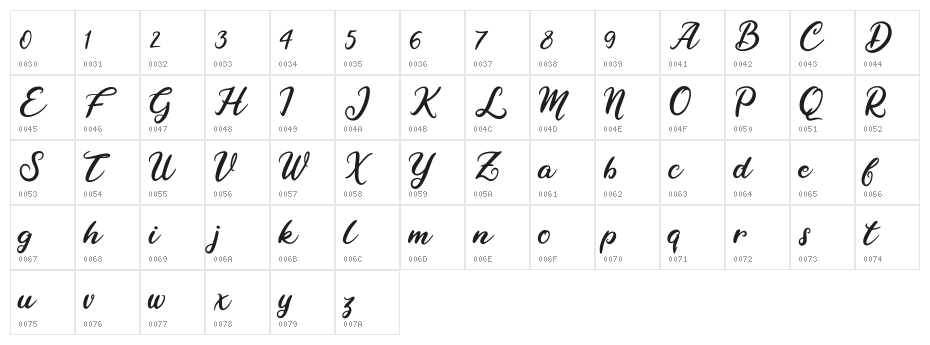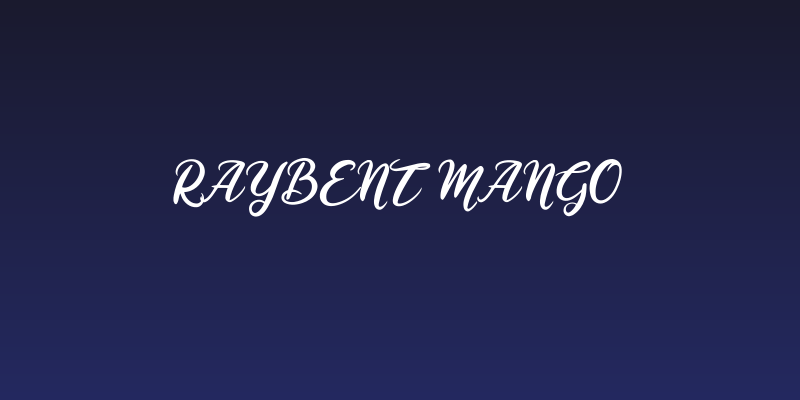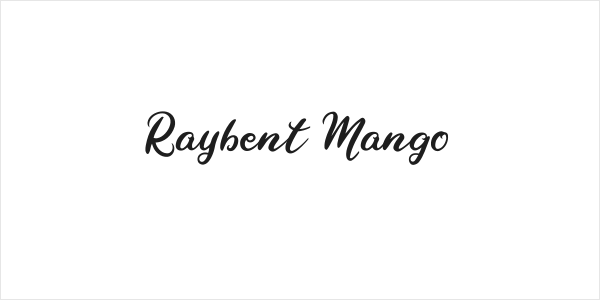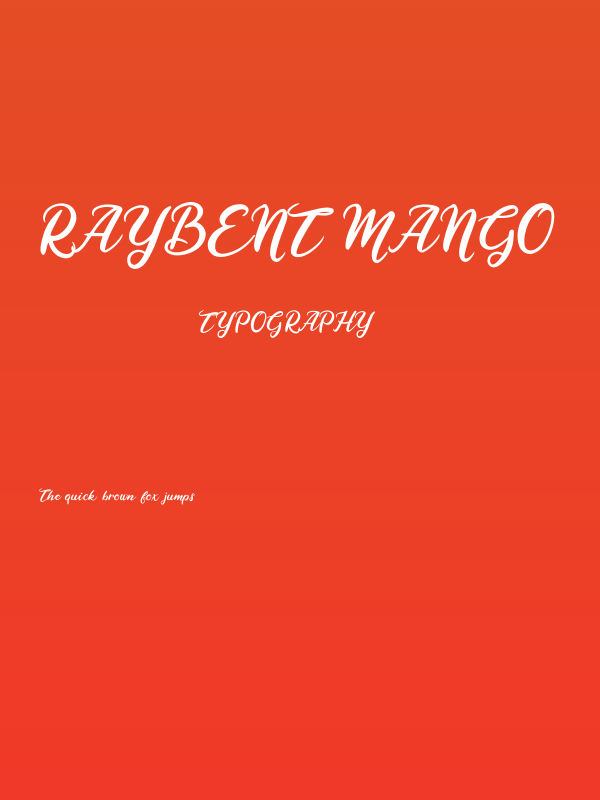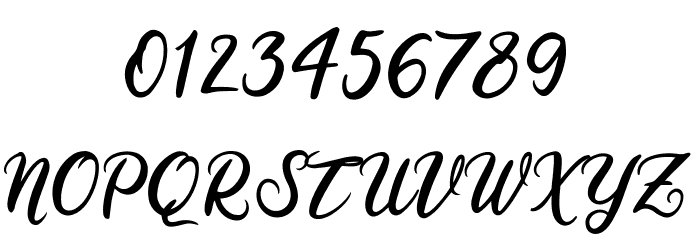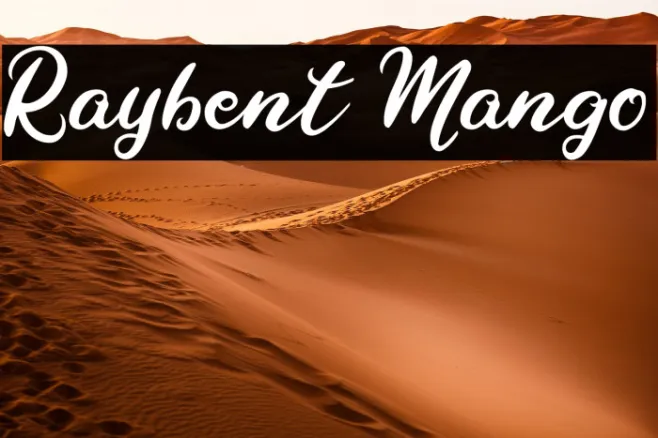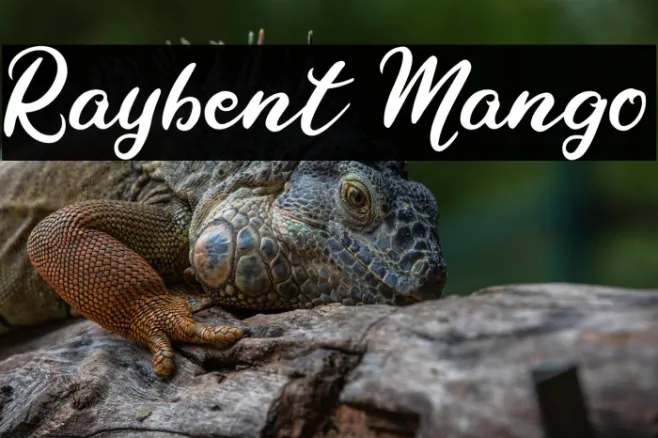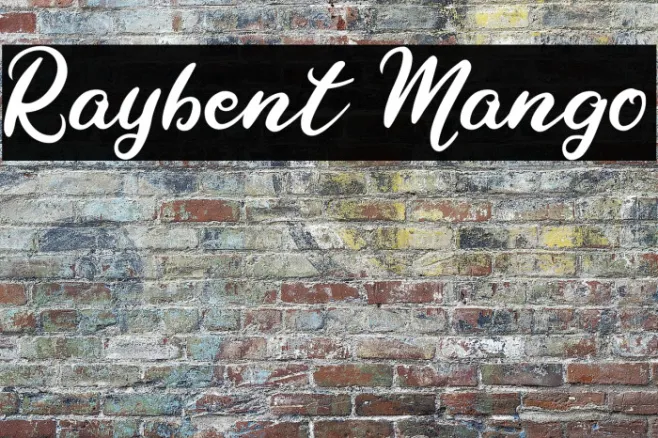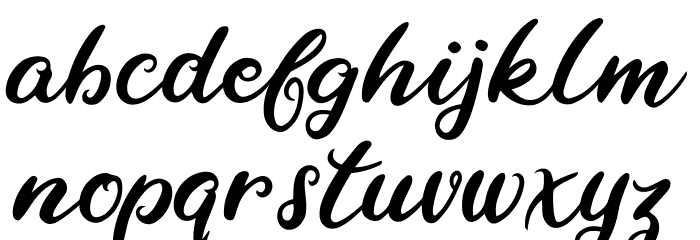
Raybent Mango Font
Raybent Mango Description
This font features a flowing, cursive style with elegant curves and smooth transitions between characters. The uppercase letters are bold and expressive, while the lowercase letters maintain a consistent fluidity that enhances readability. The numerals are distinct and harmonize well with the overall script style. Special characters are crafted with the same attention to detail, ensuring a cohesive look across all text elements. The font's design is both classic and modern, making it versatile for various applications.